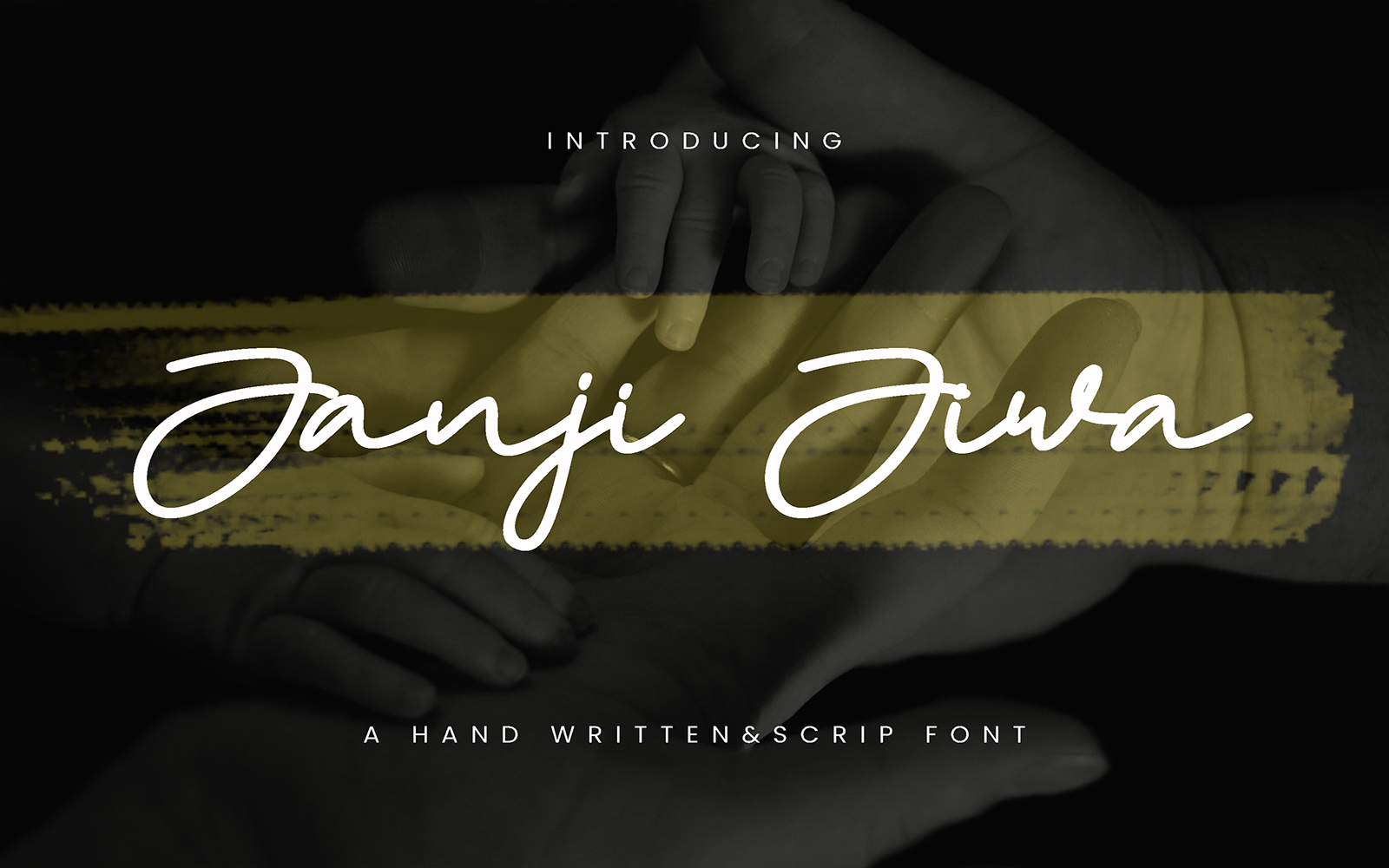
Janji Jiwa - Handwritten Font
Introducing **Janji Jiwa**, a simple and elegant handwritten font.
**Features**
+ Uppercase
+ Lowercase
+ Punctuation
+ Numerals